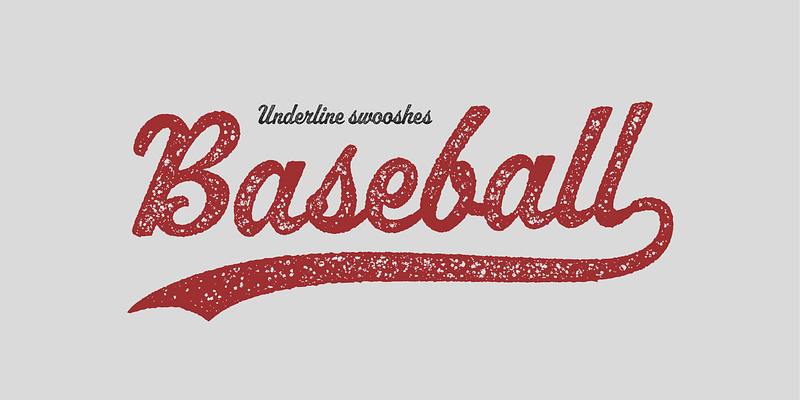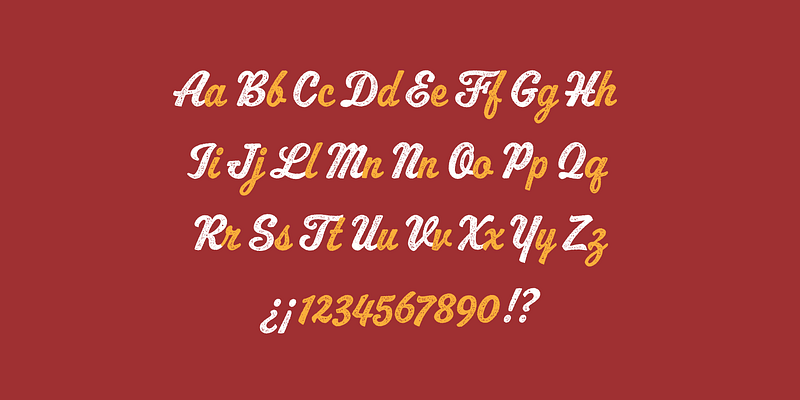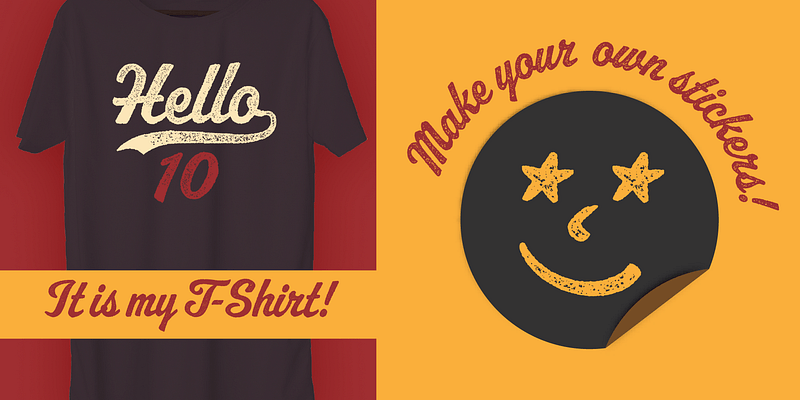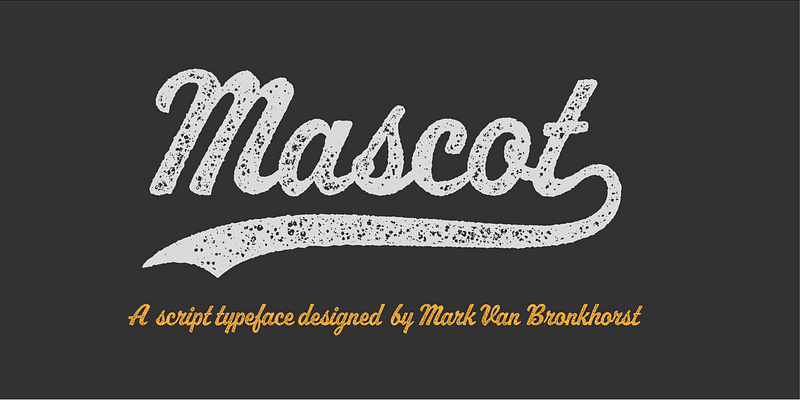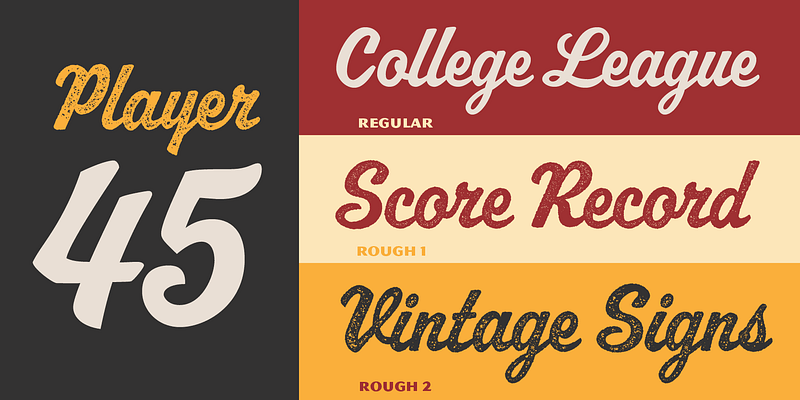
Even if sports aren’t your thing, you might find script varsity lettering from years past to have a certain appeal, perhaps conjuring simpler times. Naive and uneven yet jaunty and legible, such casual scripts, with their requisite underline swooshes, were standard equipment for baseball teams from one-horse towns to the major leagues. To bring this aesthetic to the digital arena, Mark van Bronkhorst began with a vintage iron-on alphabet, redesigning the flocked, overlapping letters to behave as a script typeface, expanding the character set to support all Latin-based languages. Despite its professional skill set, MVB Mascot® retains the unvarnished spirit of its inspiration.